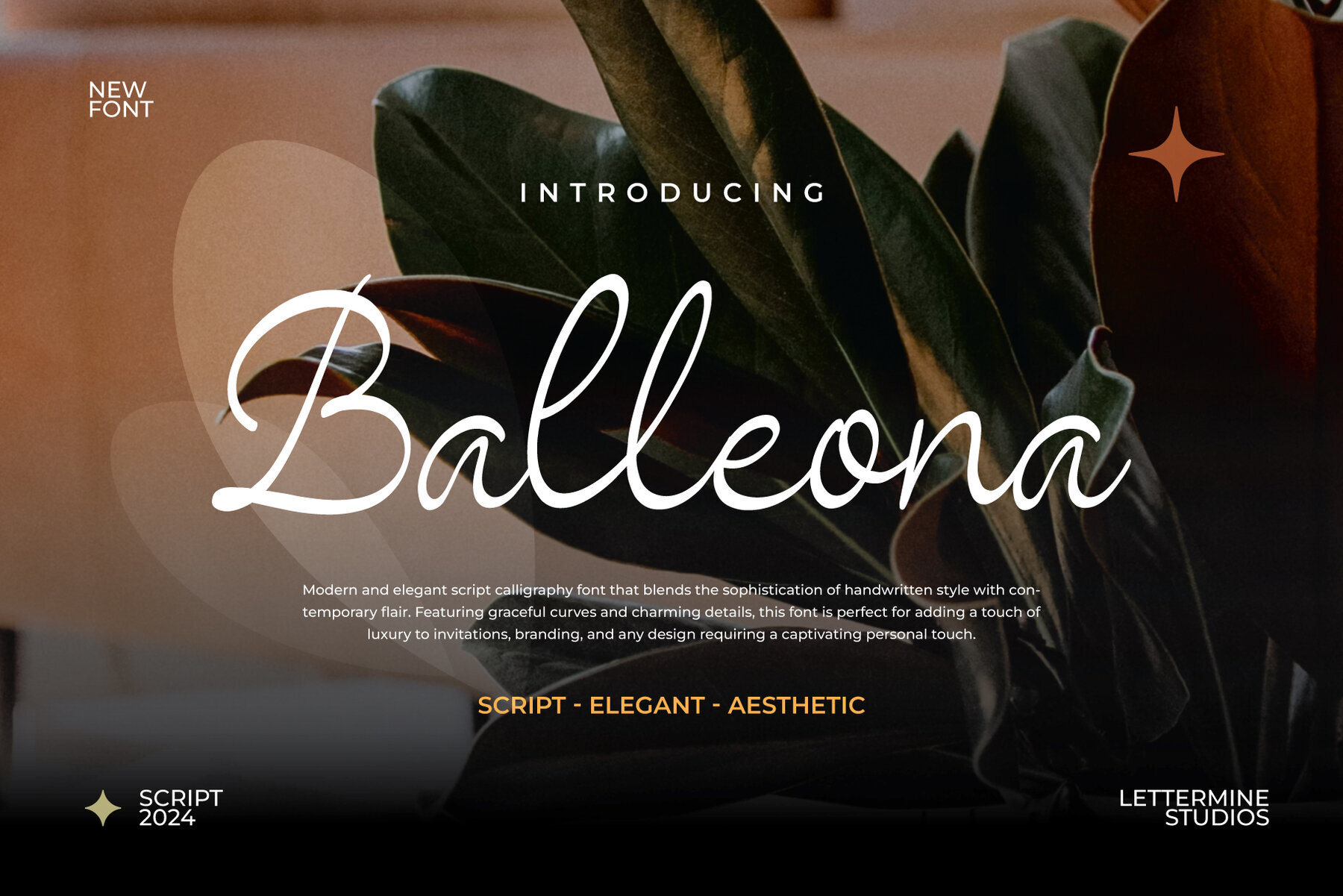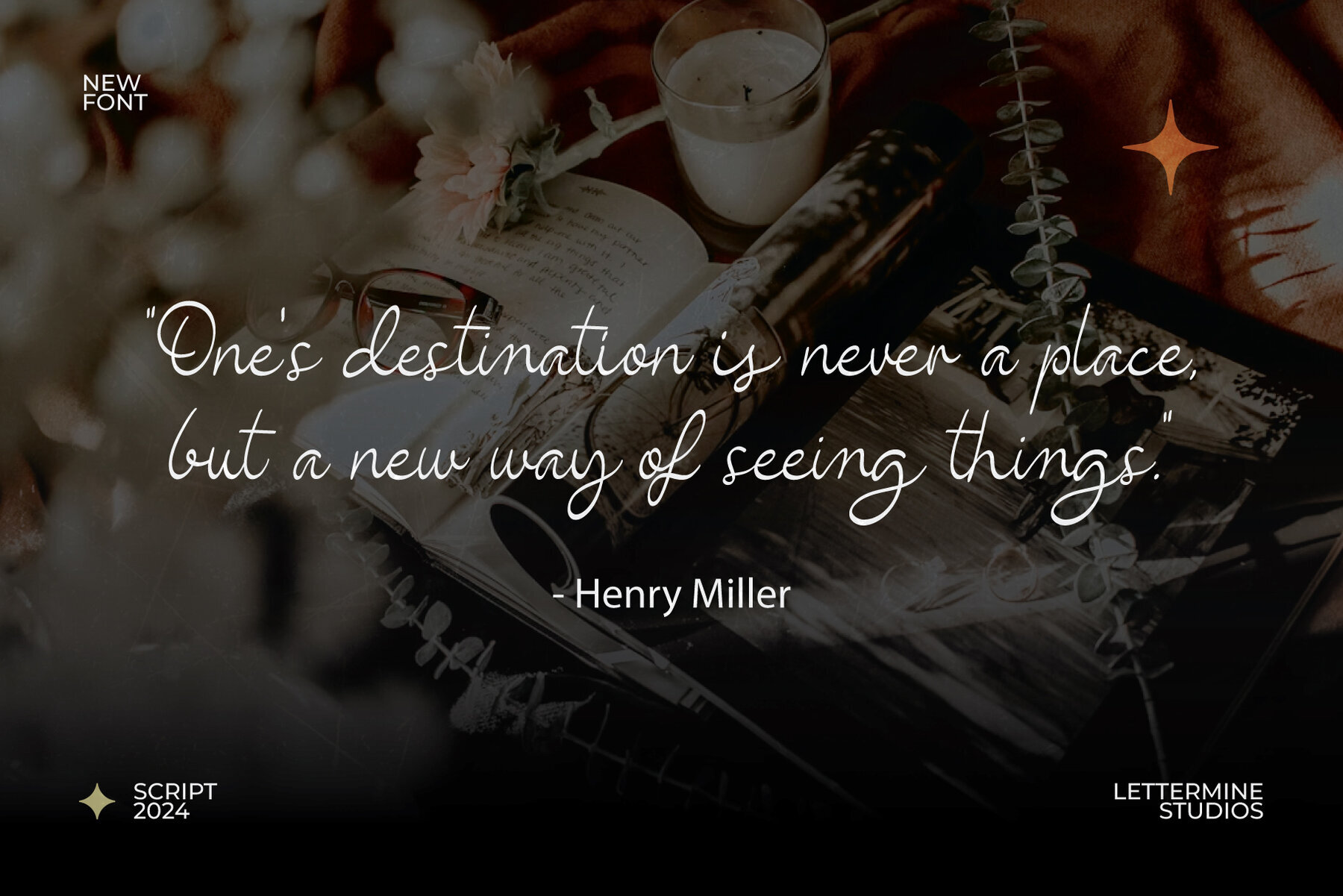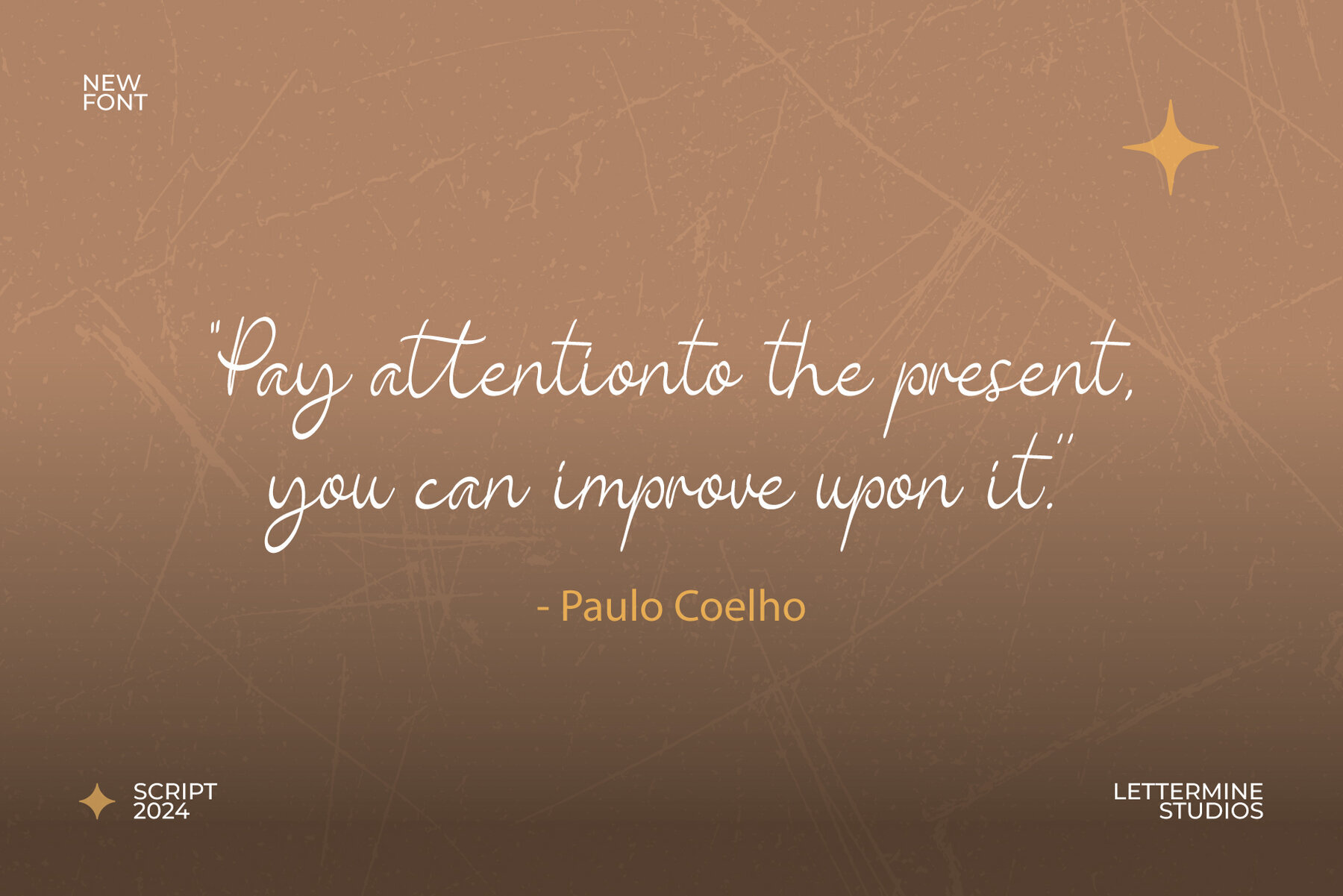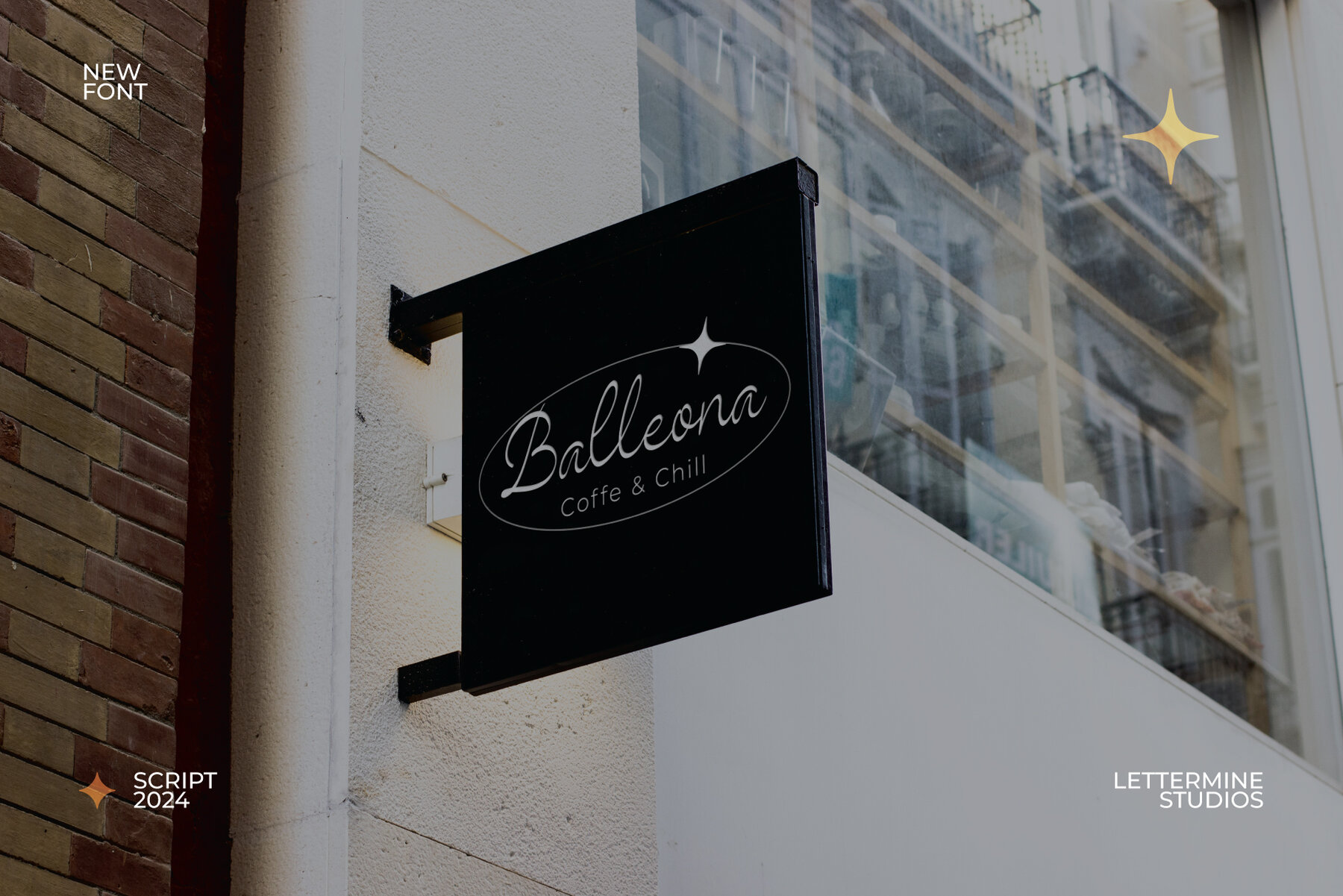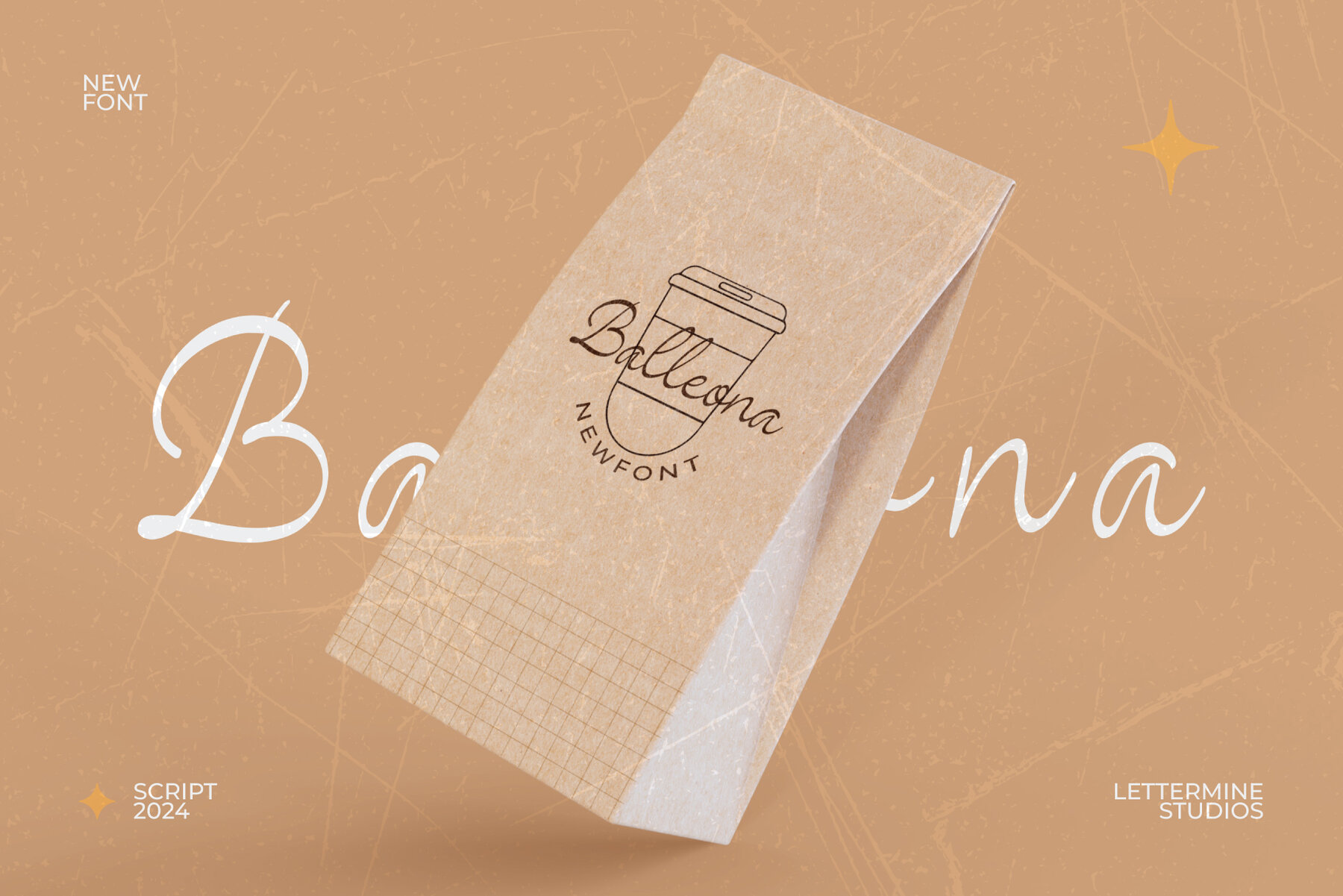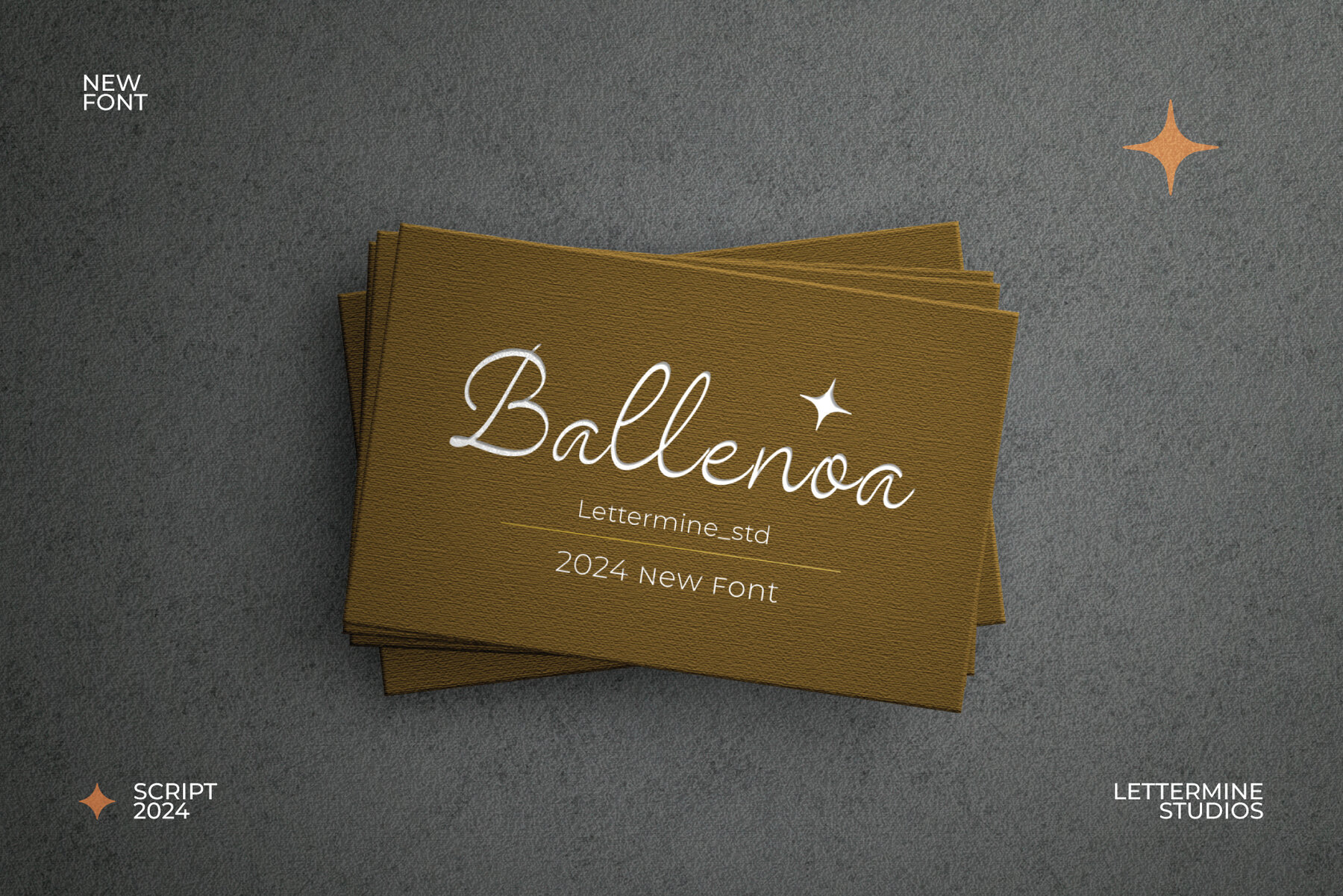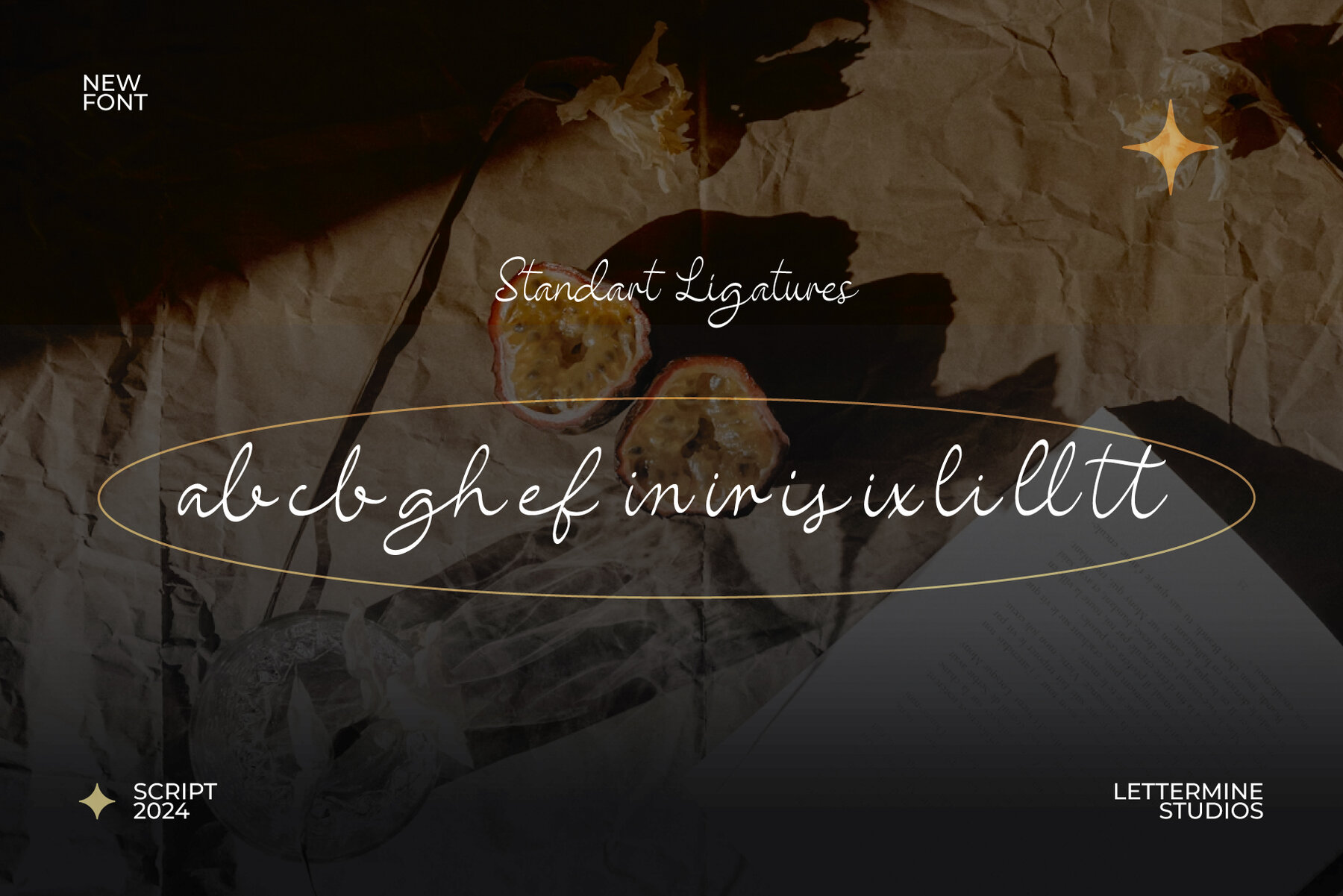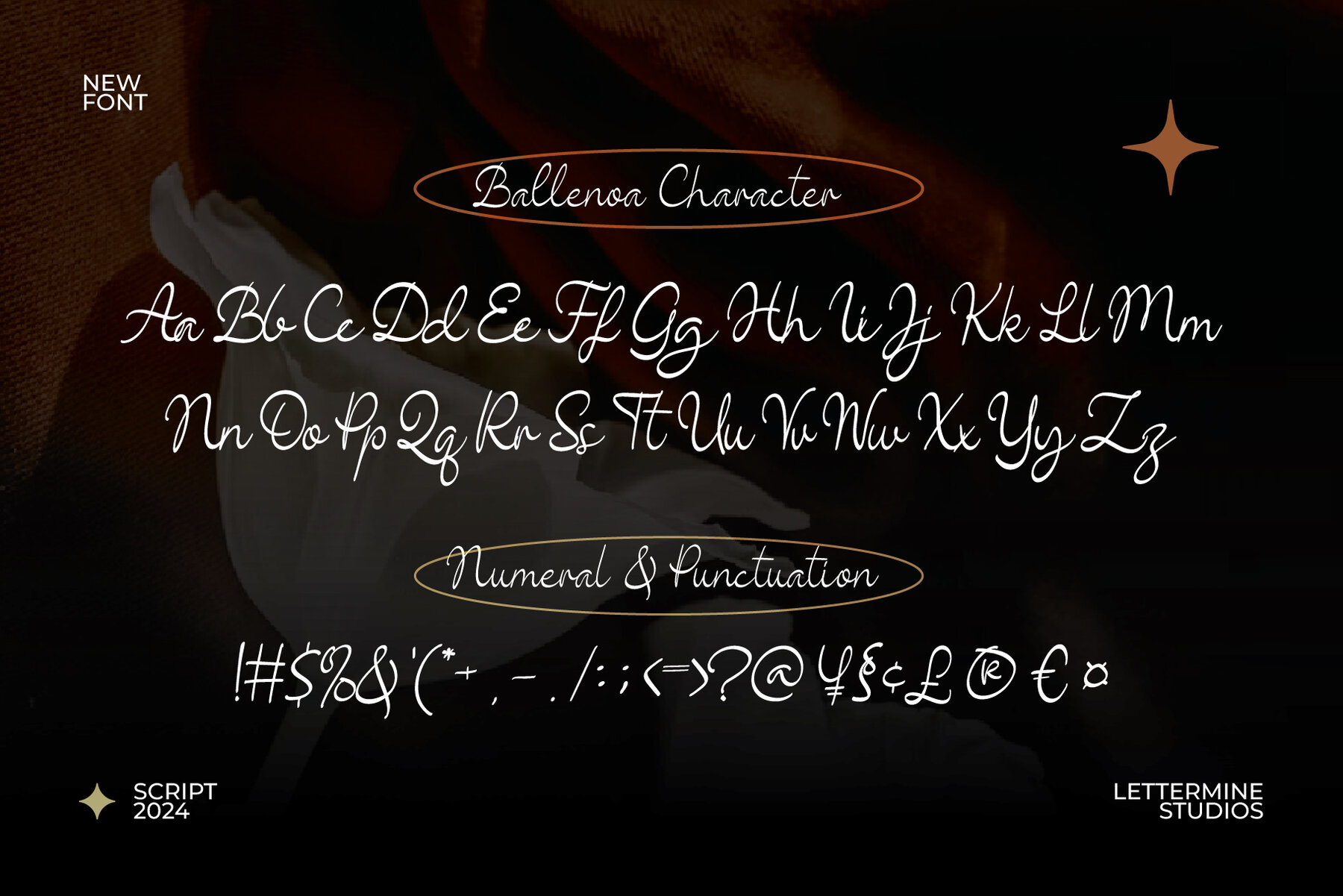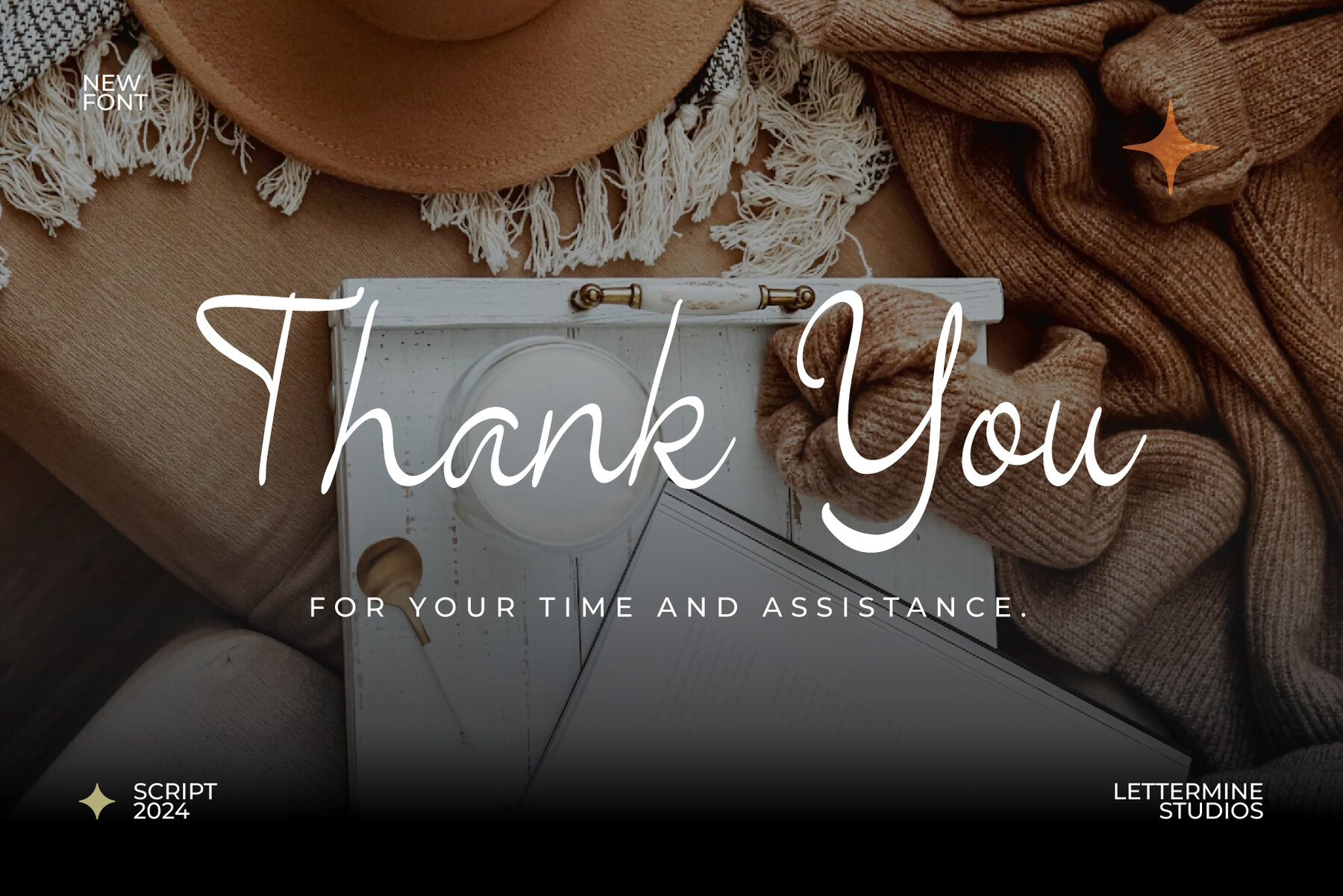
Ballenoa Font
Ballenoa Regular
BALLENOA – Handwritten Script Font
Elegant and flowing, BALLENOA brings a natural, handwritten touch to your designs, perfect for creating a personalized and artistic feel. This font features both uppercase and lowercase letters, punctuation, and beautiful ligatures, making it incredibly versatile for various design projects.
Ideal for invitations, greeting cards, branding, logos, social media posts, wedding designs, quotes, and typography art, BALLENOA's authentic, handcrafted style adds a unique charm to your work. Whether you're crafting a logo or designing an invitation, this font offers the perfect blend of elegance and creativity.